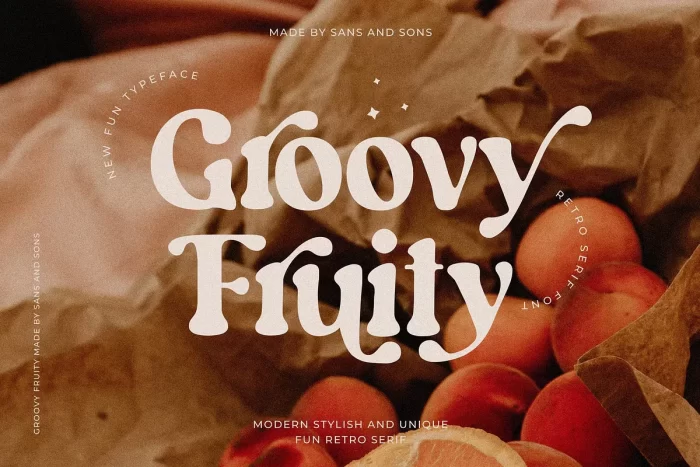
Groovy Fruity is a fun retro serif font by Sans and Sons. Perfect for branding projects, logos, magazine imagery, wedding invitations, posters, clothing, packaging, website headers, or simply as a stylish text overlays to any background image.